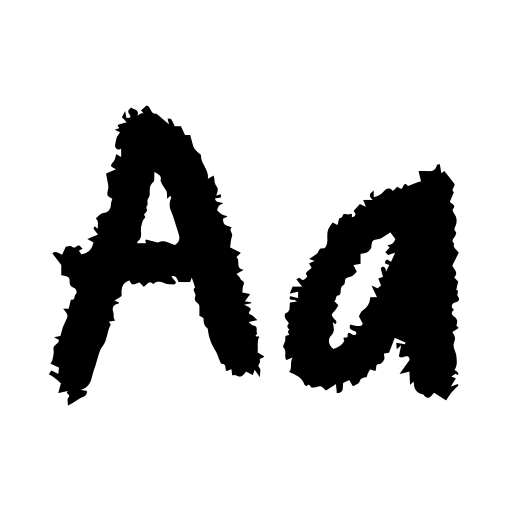
BLAXIE is a bold, hand-drawn sans serif font with a playful and textured look that feels casual and energetic. Its rough, uneven strokes and informal style make it ideal for creative projects, children’s materials, or any design seeking a friendly, approachable vibe. This font works best in headlines, logos, and posters where an expressive, handcrafted touch is desired.
BLAXIE Font
About BLAXIE Font
| Font family | BLAXIE Font |
| Designer | M Ansori Zakaria |